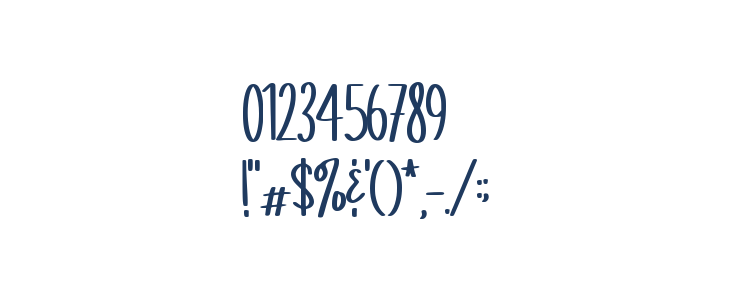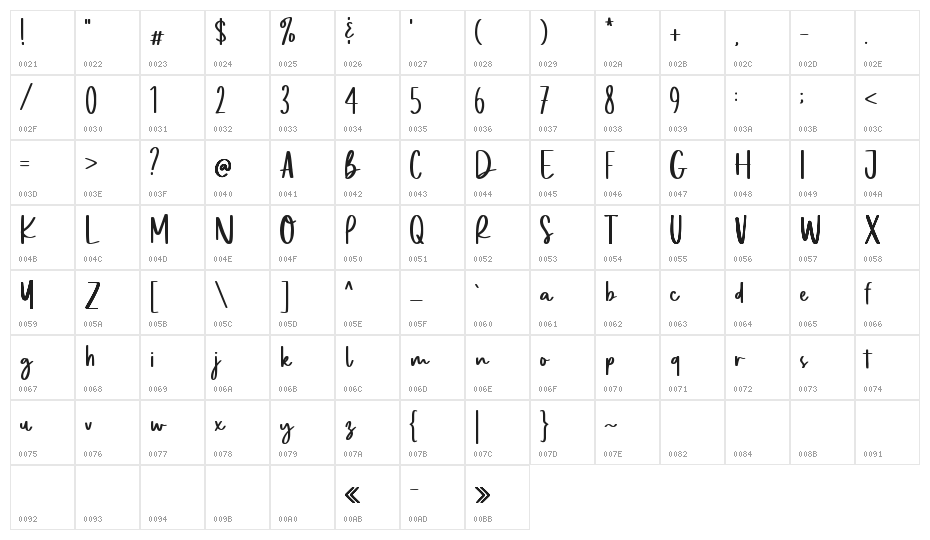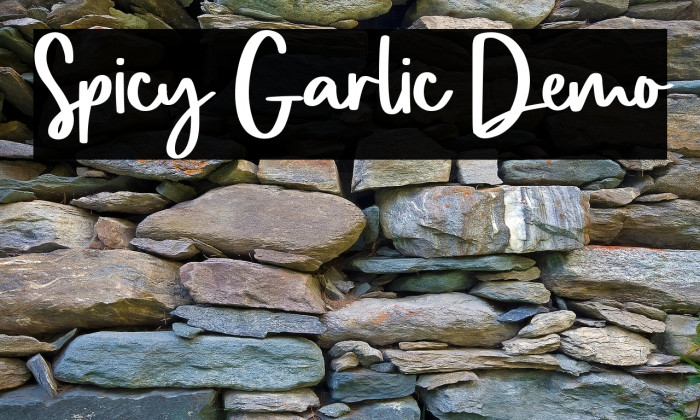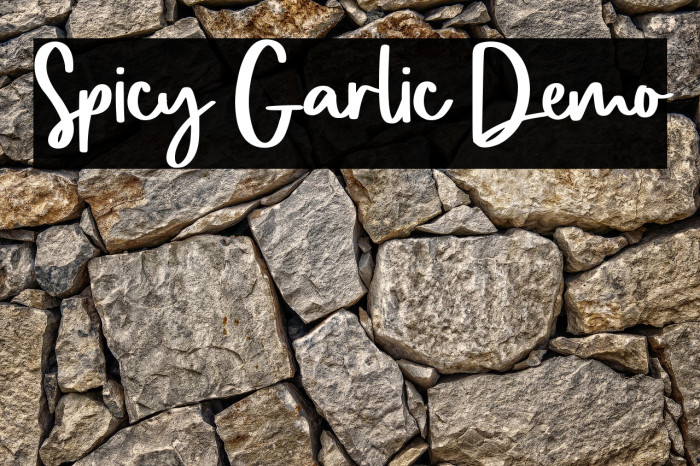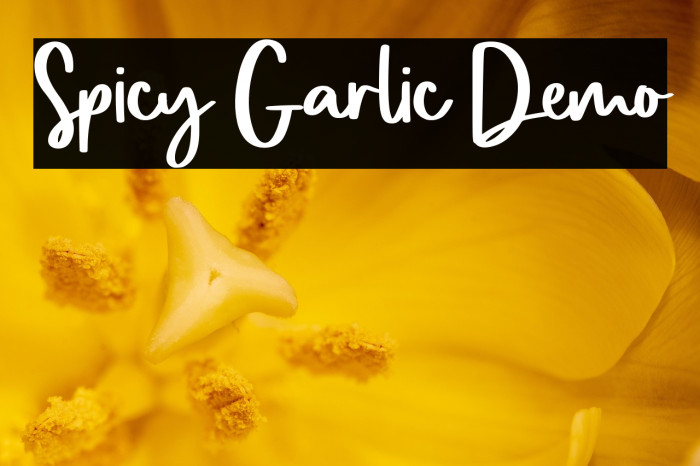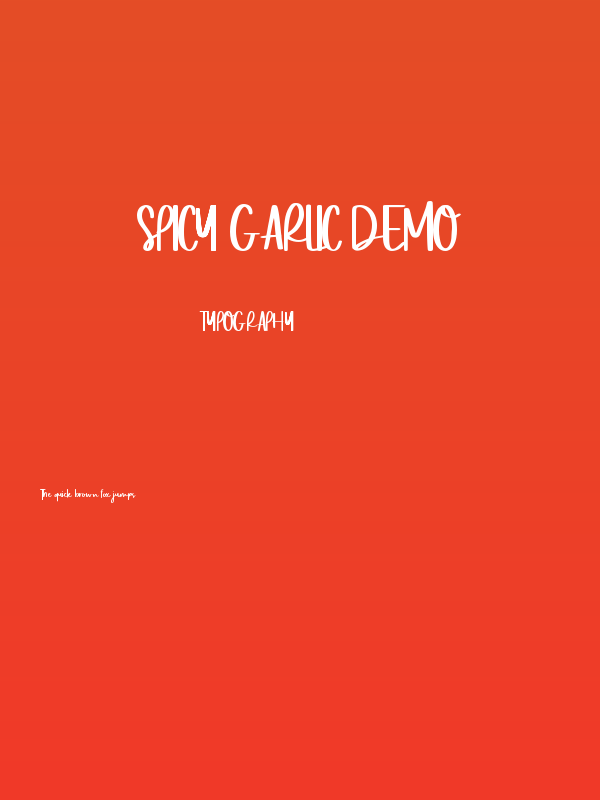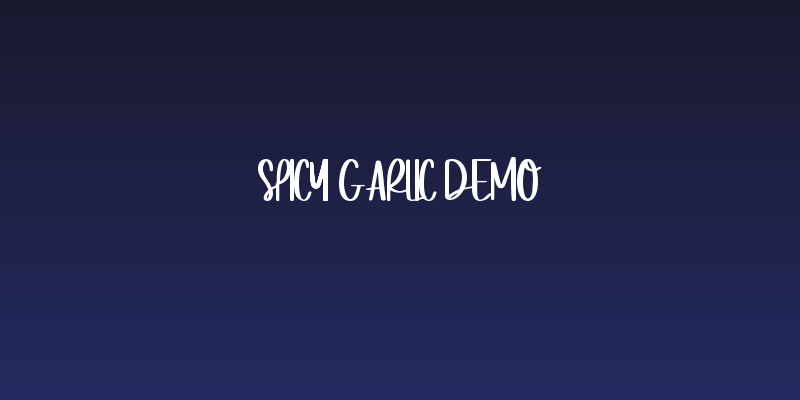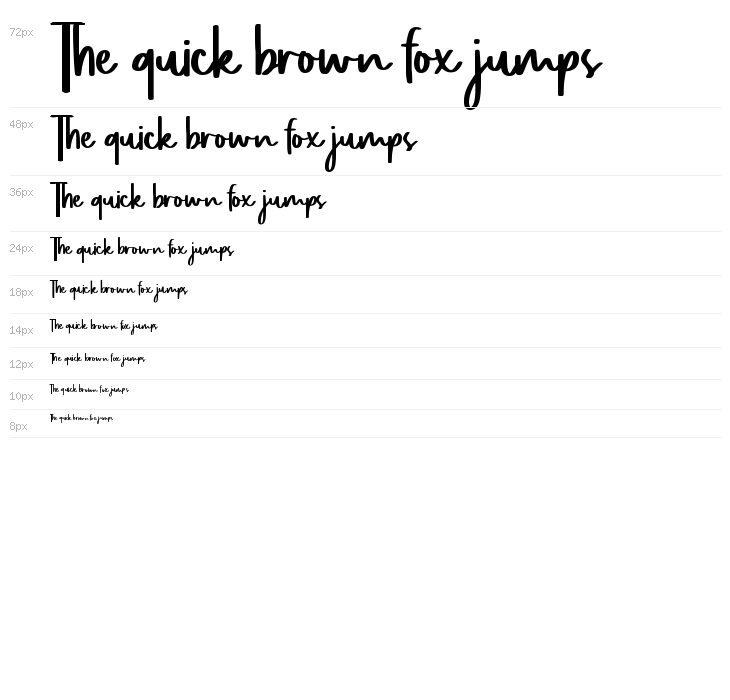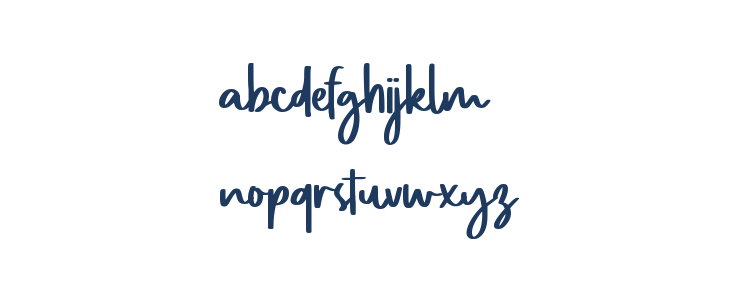
Spicy Garlic Demo Font
Spicy Garlic Demo Description
This font features a playful and energetic handwritten style with a modern twist. The uppercase letters are bold and slightly condensed, giving them a strong presence, while the lowercase letters are more fluid and dynamic, adding a sense of movement. The numbers and special characters maintain the same lively aesthetic, making the font versatile for various uses. The strokes are consistent in thickness, providing a balanced appearance. This font is ideal for projects that require a personal touch or a creative flair.
| Use Case | Logos, Headlines, Social Media |
| Proposed Projects | Great for greeting cards, social media graphics, branding, and playful invitations. |